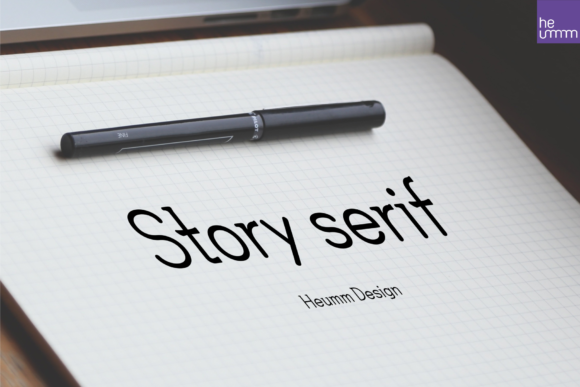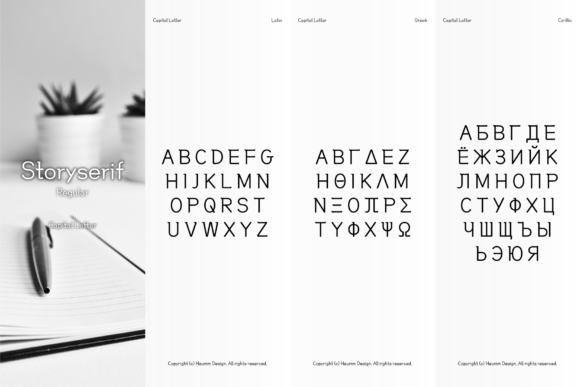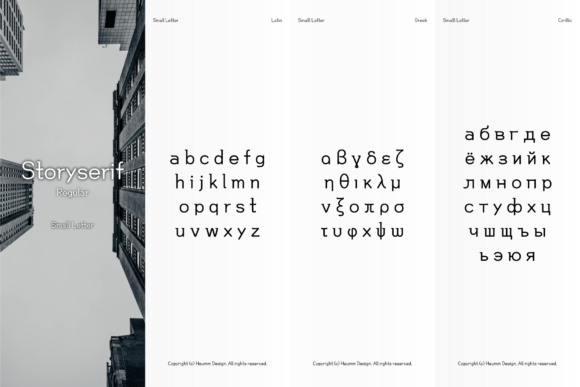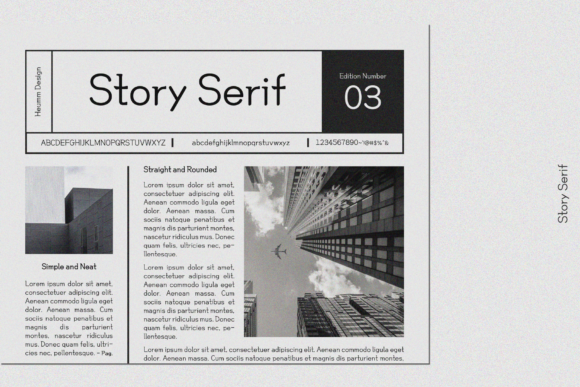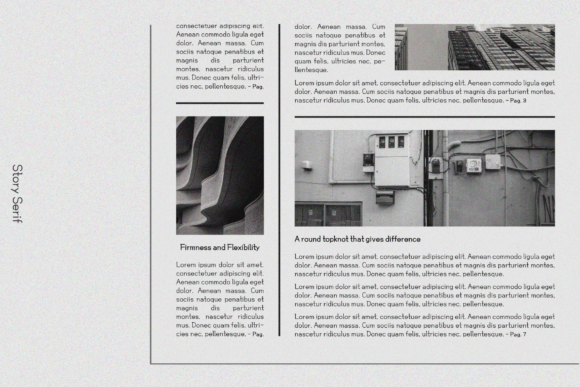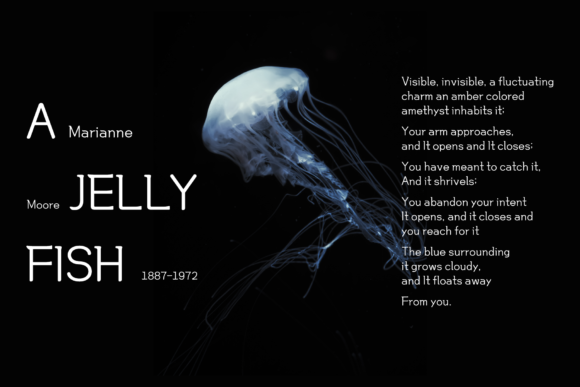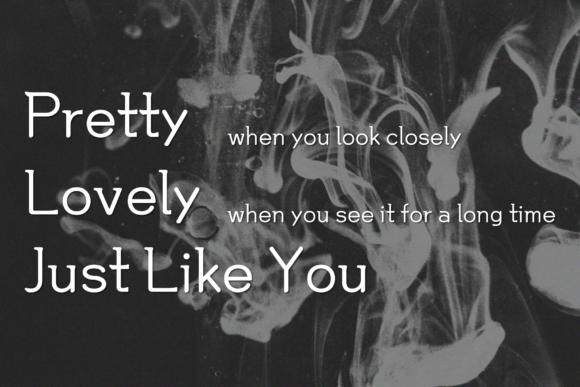
Story Serif
Story Serif: A Unique Slab Serif Font
Story Serif is a distinctive slab serif font that combines a concise and neat aesthetic with a touch of uniqueness. This typeface is designed to bring a special feeling to your projects, featuring rounded conclusions of straight lines and a more rounded topknot than typical slab serifs.
Key Features of Story Serif
• Concise Design: Offers a clean and organized look suitable for various applications.
• Unique Style: Combines traditional slab serif elements with a modern twist.
• PUA Encoded: Allows easy access to all glyphs and swashes for enhanced design flexibility.
• Versatile Application: Ideal for projects requiring a distinctive and professional appearance.
Ideal Uses for Story Serif
Story Serif’s unique characteristics make it particularly well-suited for:
When incorporating Story Serif into your designs, consider these tips:
• Use for headlines or short blocks of text to showcase its unique style.
• Utilize its versatility across various creative projects to enhance visual appeal.
Story Serif is an excellent choice for designers looking to add a unique slab serif font to their typographic toolkit. Its ability to bring a distinctive feel to various design projects makes it stand out in the world of typography. Whether you’re working on logo designs, creating layouts for magazines, or developing content that requires a touch of creativity, Story Serif offers the perfect blend of style and functionality.
Furthermore, Story Serif’s unique design allows it to shine in various contexts. From vintage-inspired designs with a modern twist to more contemporary layouts that need a touch of uniqueness, this font can elevate your projects. Its striking yet functional style works particularly well in designs that require a thoughtful and engaging mood.
In conclusion, Story Serif is a font that truly captures the essence of creativity and impact in typography. Its ability to work well in both minimalist projects and more elaborate layouts showcases its flexibility. For those looking to add a touch of unique charm to their work, Story Serif can even enhance themed creations with its distinctive style. It’s the perfect choice for designers seeking to make a strong, stylish impact across a wide range of creative projects.